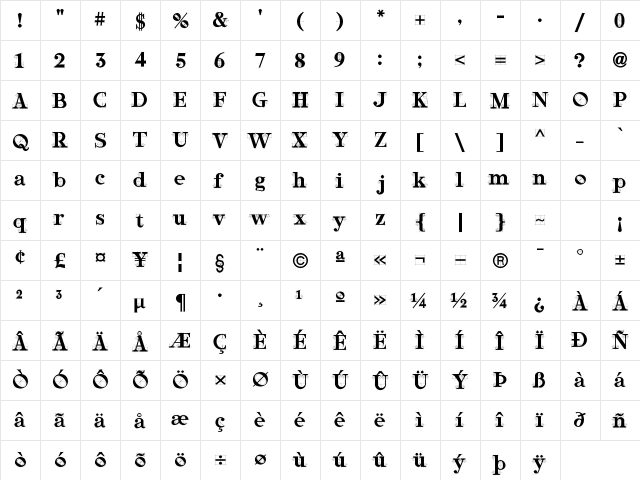
Rubino Serif Solid Regular
Design Context for Rubino Serif Solid
Rubino Serif Solid carries the refined structure of traditional serif typography, with bracketed terminals and considered proportions that communicate credibility and craft.
Pro Tip: Use Rubino Serif Solid for editorial body copy and considered headline work. Pair with a neutral sans for UI elements or captions to create a classic hierarchy.